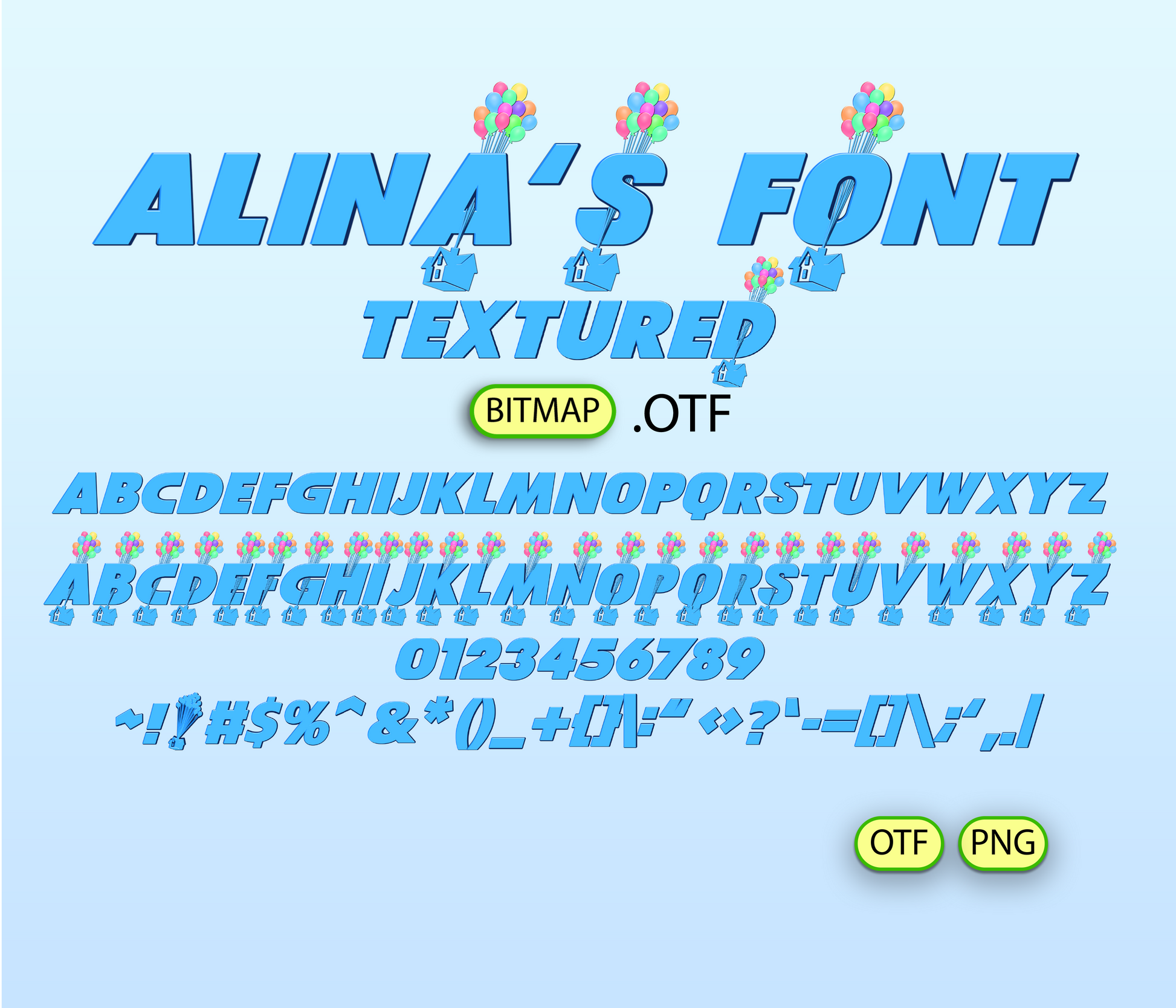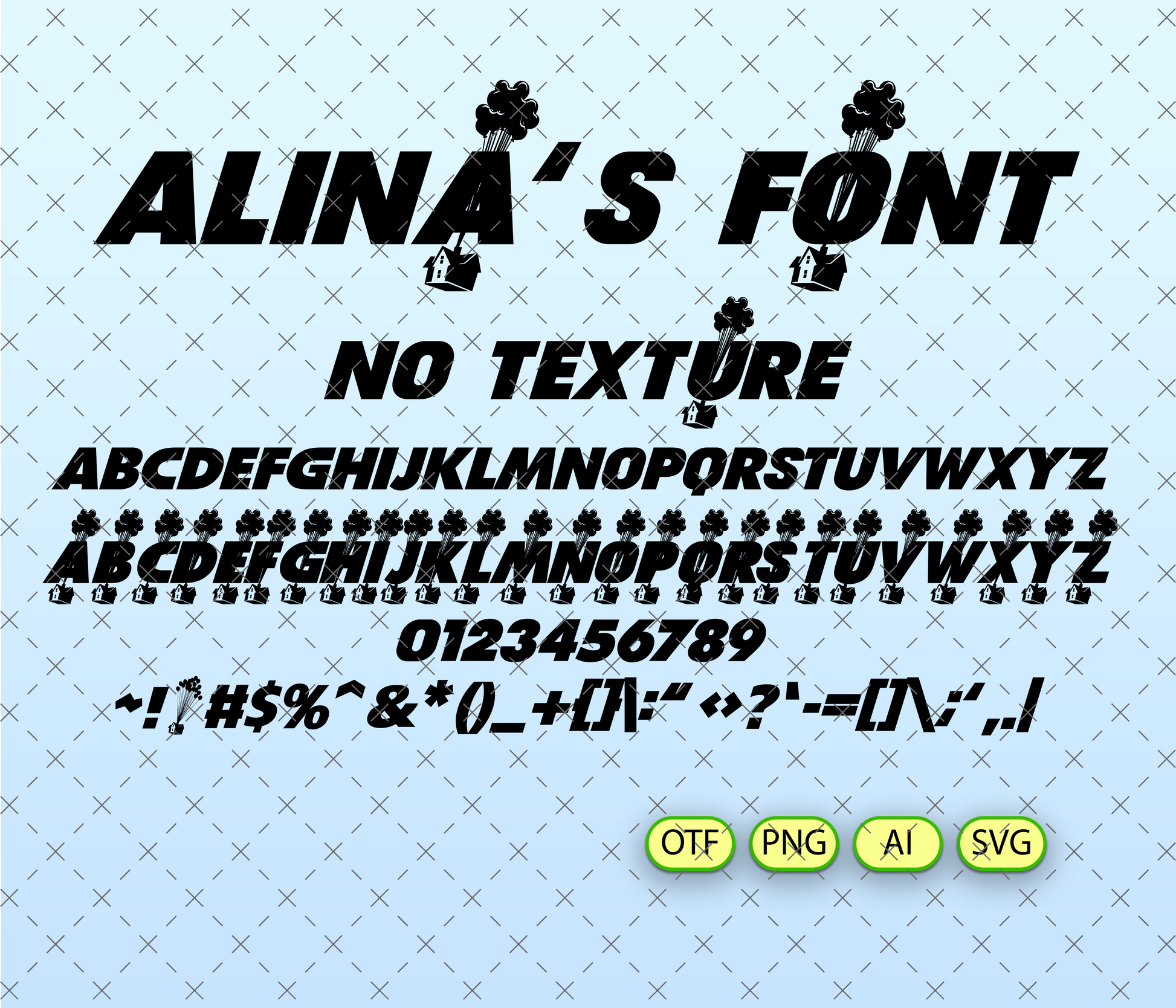
Sky Adventure Font Textured
Step into the adventurous world of high-flying journeys with our Sky Adventure Font, capturing the essence of colorful balloons and heartwarming exploration. Perfect for party planners, adventure enthusiasts, creative designers, and professionals, this font brings the uplifting, whimsical spirit of soaring dreams to your projects. Create inspiring invitations, merchandise, or digital content with the joyful energy of balloon-powered adventures.
Adventurous Typography for Party Design & Creative Projects
Our Sky Adventure Font features playful, buoyant letterforms with colorful balloon-inspired textures reflecting the world of high-flying adventures and dreamy exploration.
Our font pays tribute to the world of adventure and heartwarming journeys, empowering your projects with its uplifting and whimsical spirit. Whether crafting party materials, designing themed products, or adding an adventurous touch to personal projects, this font communicates the inspiring essence of following your dreams. Ready to inject high-flying adventure into your creations? This font is your key to joyful, impactful design.